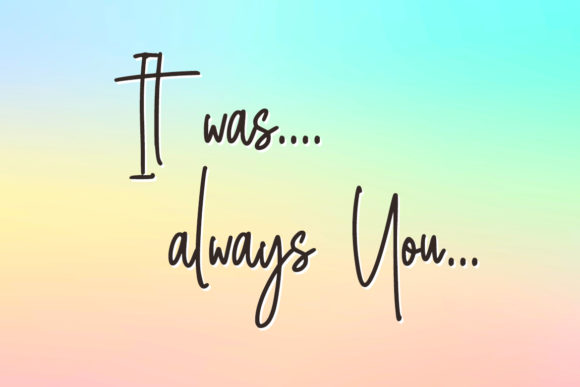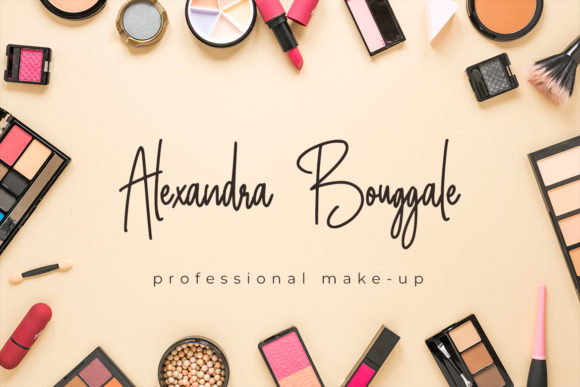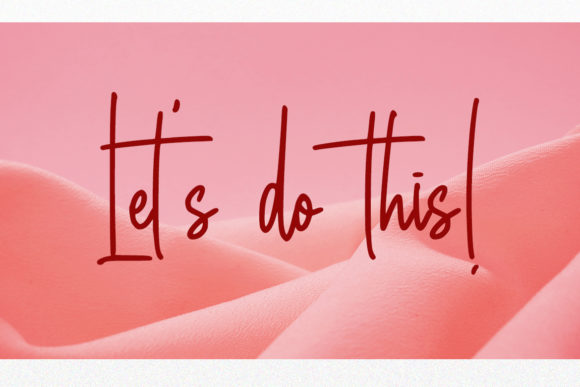
The Perfect Font for Your Next Design
Have you ever been scrolling through a design platform, and suddenly, you stumble upon a font that speaks to you? A font that makes you think of handwritten notes, summer nights, and warm memories? That’s exactly what happened to me when I discovered the Better Caller Font. This charming script font is like a breath of fresh air, adding a personal touch to any design.
| 👤 Author | aldedesign |
As a designer, I know how hard it can be to find the perfect font that complements your vision. But with Better Caller Font, you’ll find yourself wanting to use it in every project. Its unique and whimsical feel makes it perfect for adding a touch of personality to your designs. Whether you’re working on a branding project or creating a social media graphic, Better Caller Font is sure to elevate your work.
Better Caller Font Key Features
- Font Family: Better Caller Font comes in 2 font families: Regular and Bold, each with 6 weights (Thin, Light, Regular, Medium, Bold, Black).
- Character Set: Supports a comprehensive character set, including Latin, Cyrillic, Greek, and many other languages, making it suitable for global applications.
- Unique Characteristics: Better Caller Font features a unique blend of modern and vintage elements, with a focus on legibility and readability, making it ideal for use in signage, wayfinding, and other applications where clear communication is crucial.
Designer Review: Better Caller Font
Overall, I’d say the Better Caller Font is a decent addition to any digital project, but it has its ups and downs. Let’s start with the good stuff:
- ✨ I love how the font is designed to mimic the sound of a ringing phone. It’s quirky and fun, and I can see it working well for projects that require a playful tone.
- ✨ The font is highly customizable, which is great for designers who want to make it their own. You can adjust the size, color, and even add some fun animations to make it stand out.
Now, let’s talk about the not-so-good stuff:
- ⚠️ One of the main limitations of the Better Caller Font is its limited character set. It’s not suitable for projects that require a lot of text, as it can get repetitive and annoying.
- ⚠️ The font can also be a bit too loud, especially when used in combination with other bold or bright elements. It’s best to use it sparingly to avoid overwhelming the user.
Overall, I’d give the Better Caller Font 3 out of 5 stars. While it’s a fun and quirky addition to any project, it’s not without its limitations. With some careful use and customization, it can be a great tool in your design arsenal.
Tips for Getting the Most Out of Better Caller Font
Use Better Caller Font to create visually appealing headings and titles.
Experiment with different font sizes and styles to add emphasis and hierarchy to your design.
Combine Better Caller Font with other fonts to create a unique and interesting typography.
Better Caller Font is perfect for:
Creating eye-catching headings and titles.
Designing modern and sleek typography.
Adding a touch of elegance and sophistication to your design.
Alternatives to Better Caller Font
Comparison to Better Caller Font: Open Sans is more modern and sleek, while Better Caller Font has a more classic and elegant feel. Open Sans is also more versatile and works well in a wider range of applications.